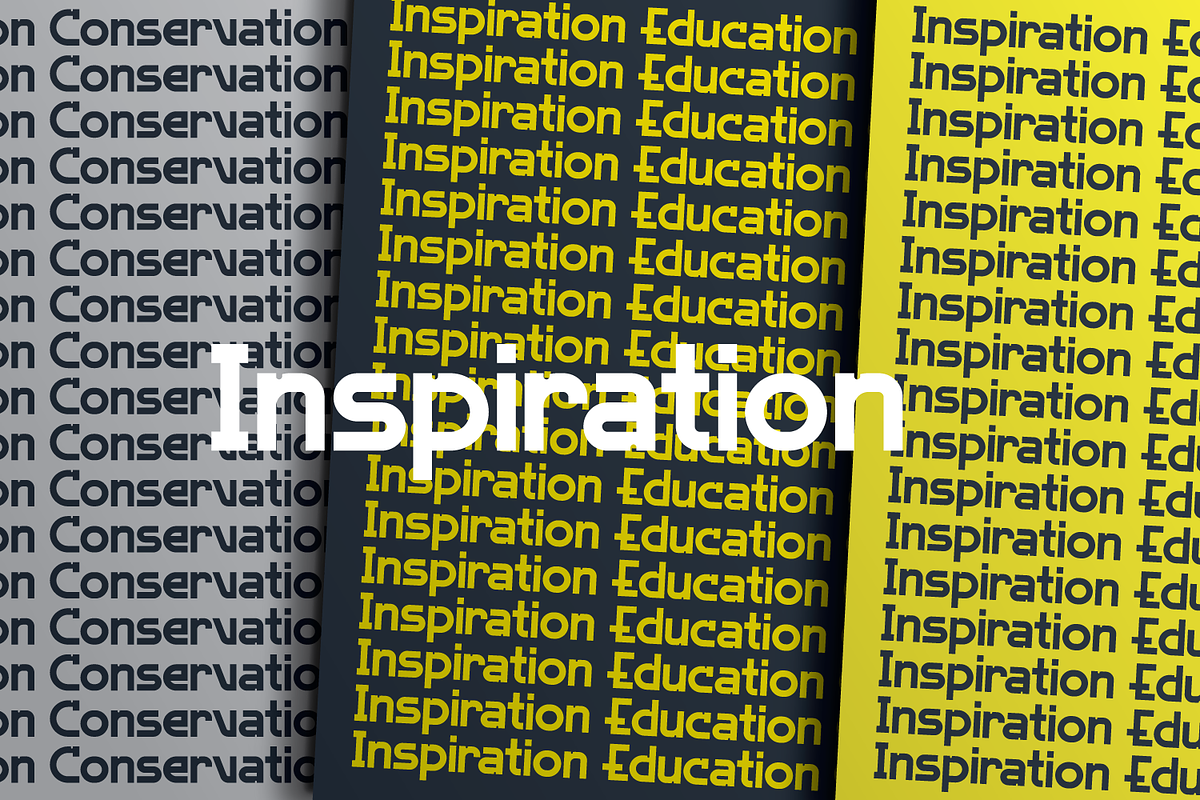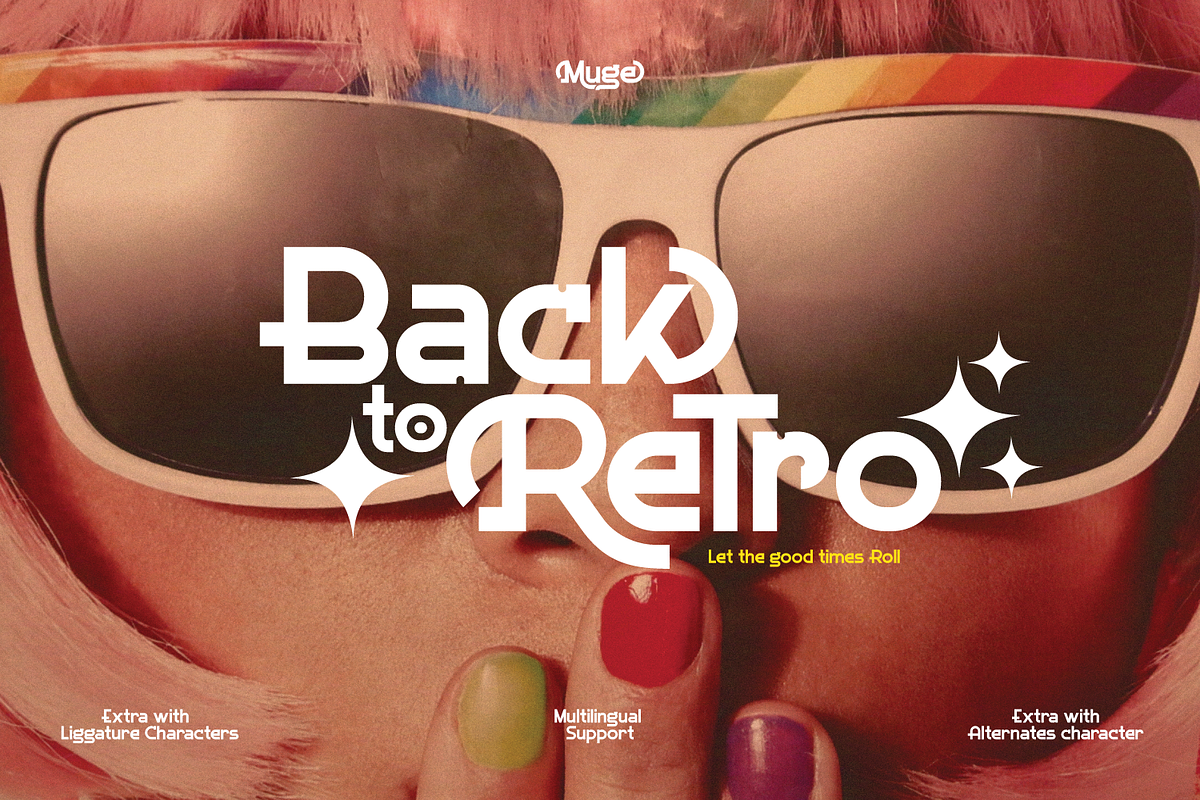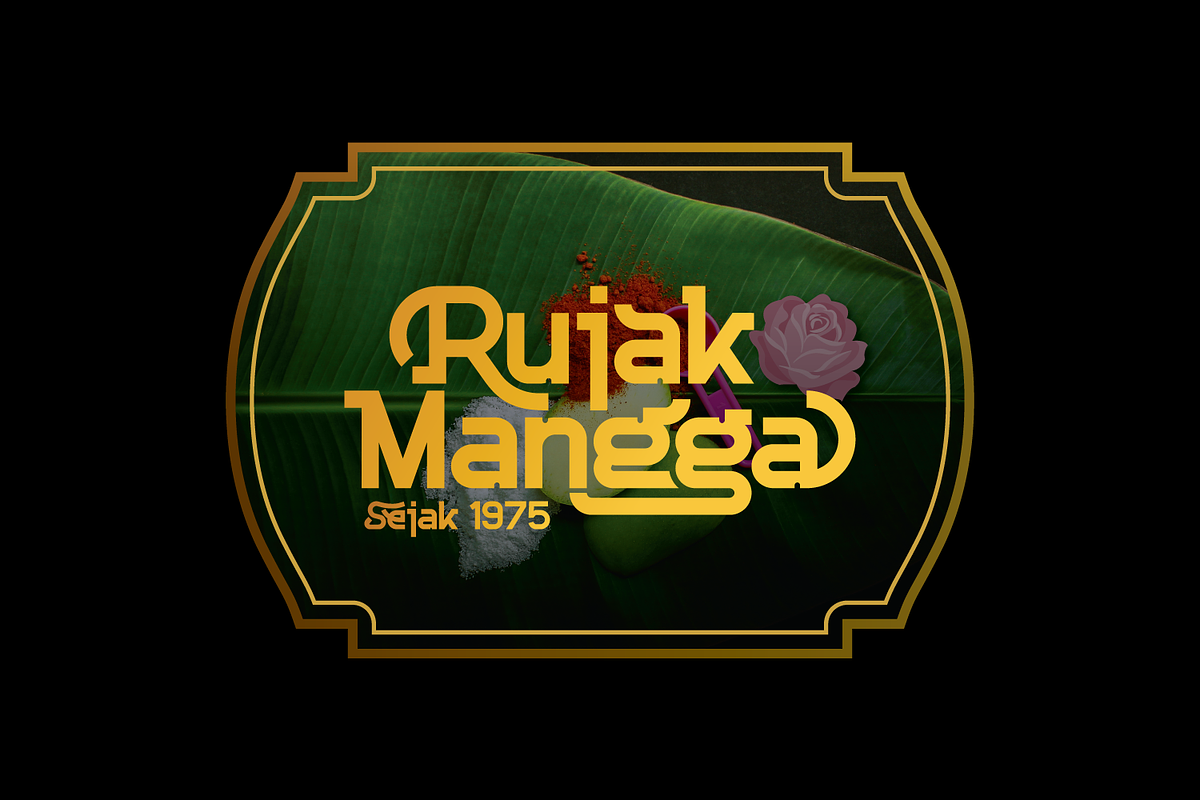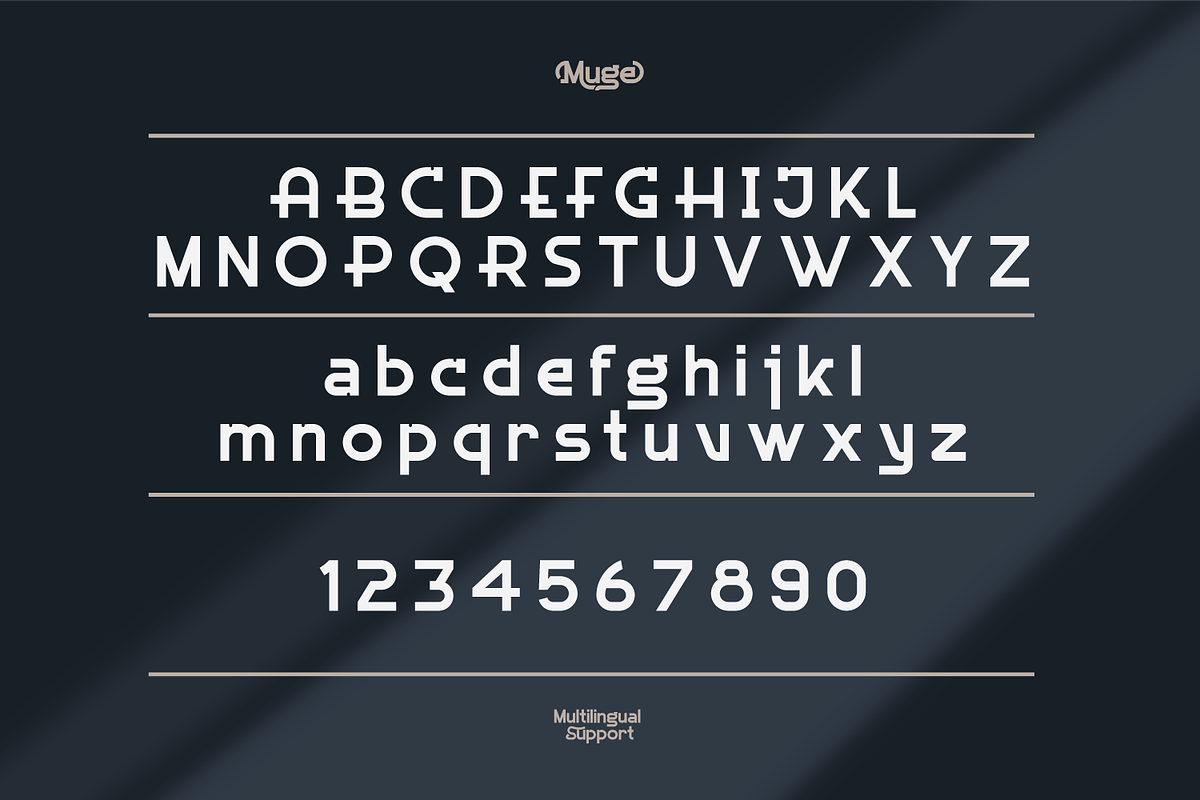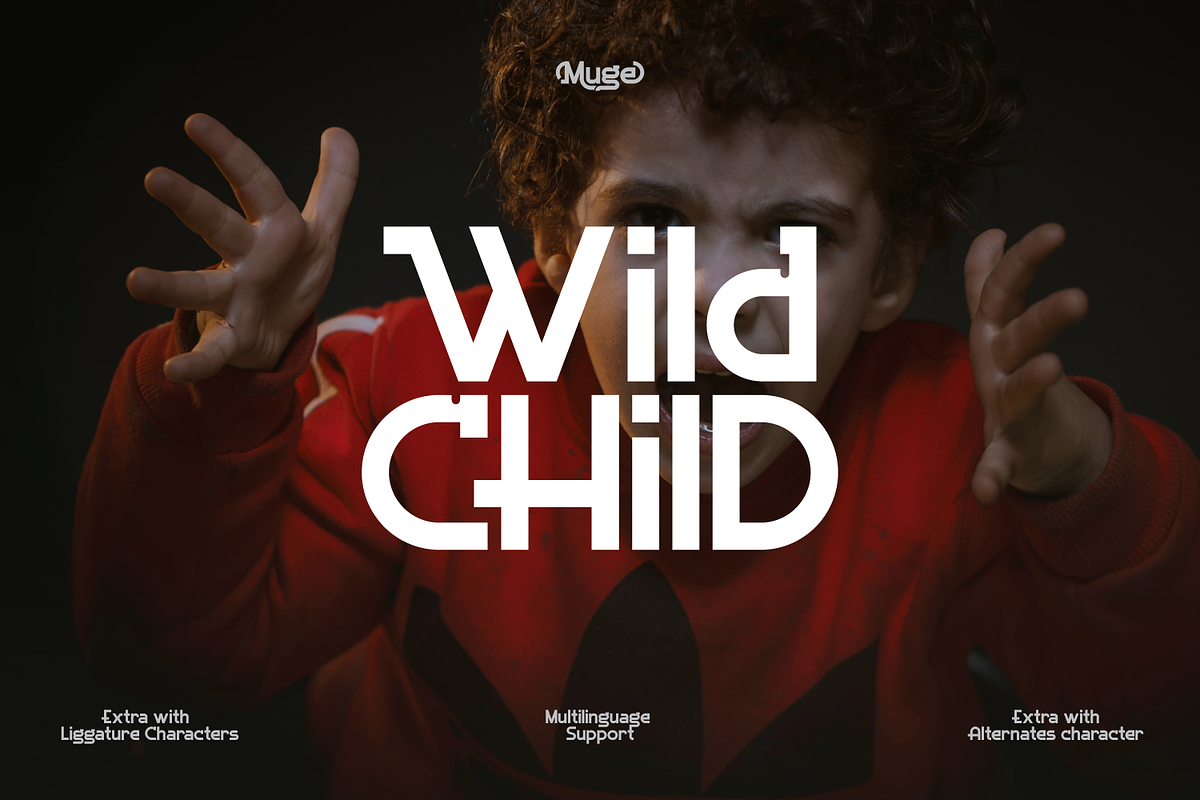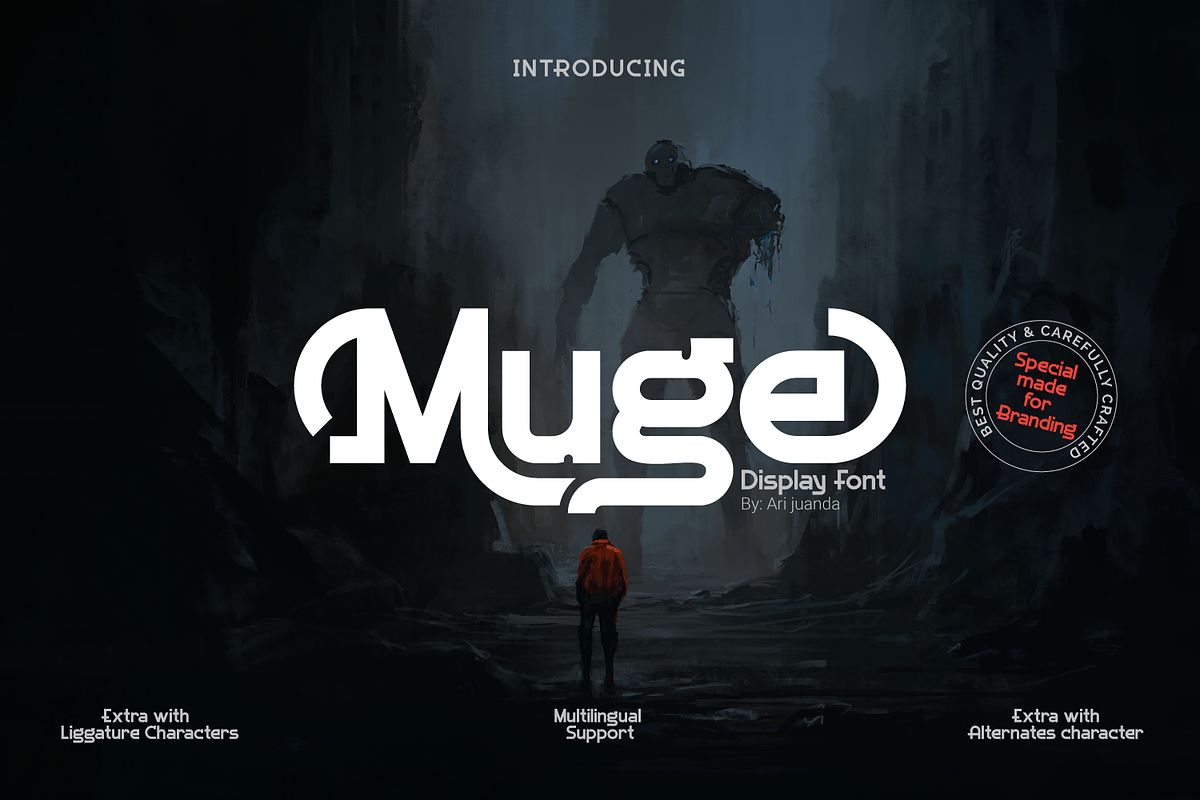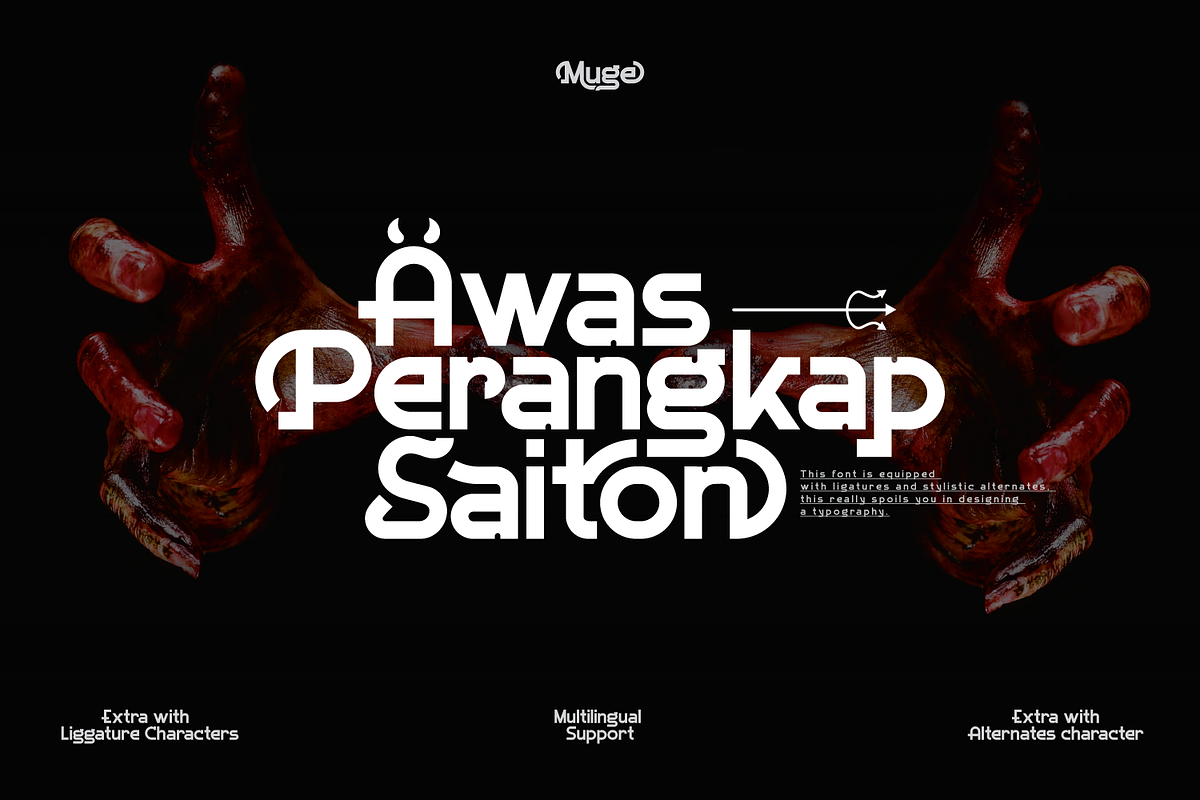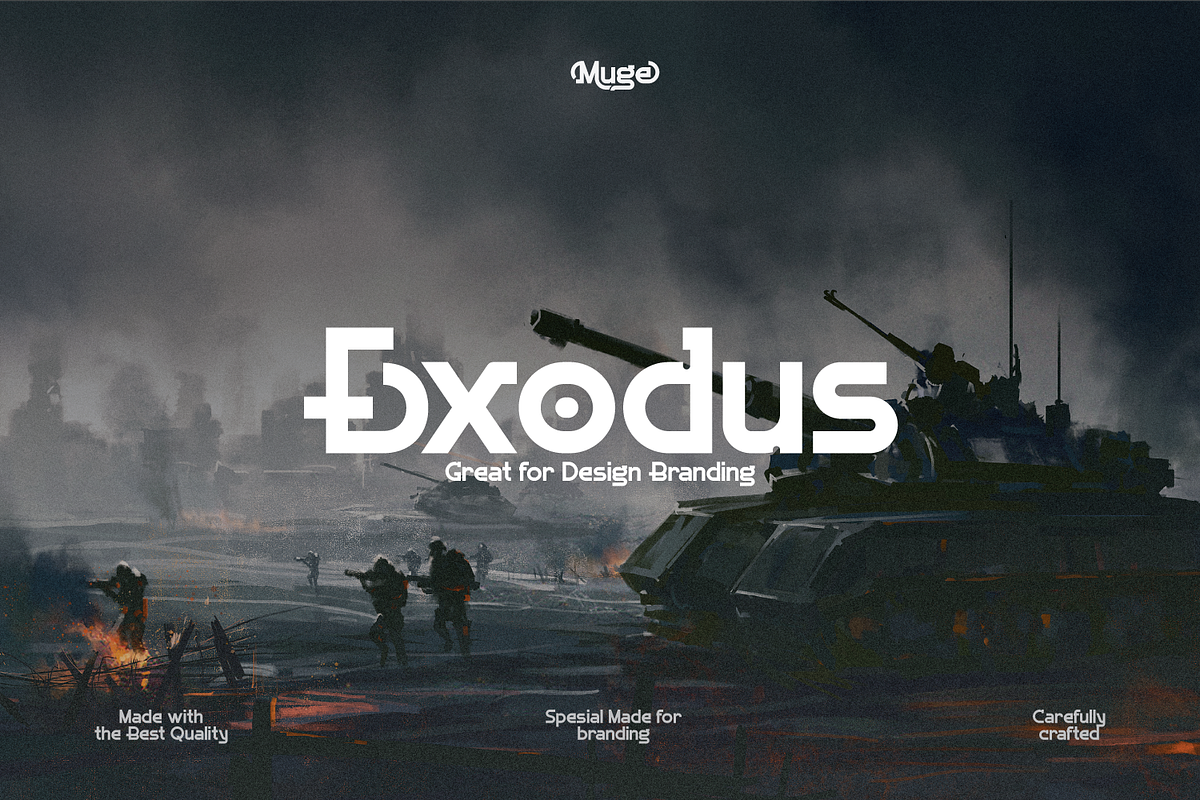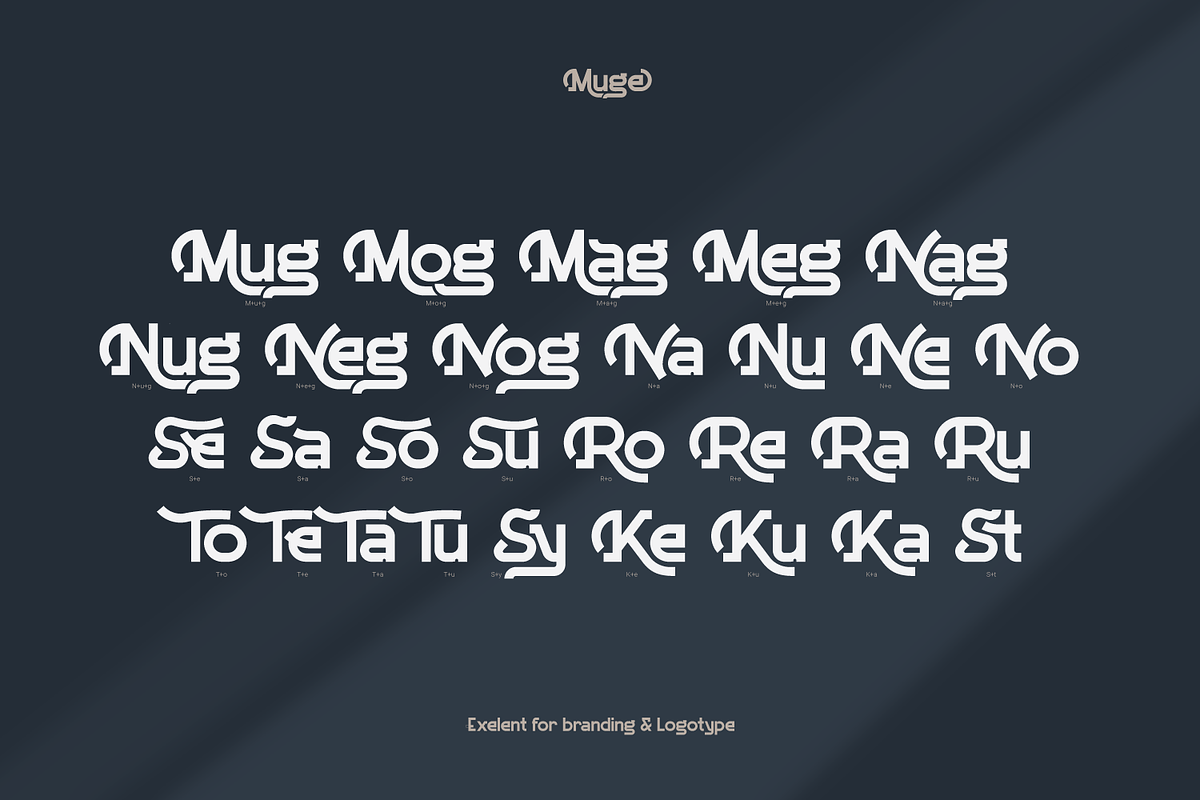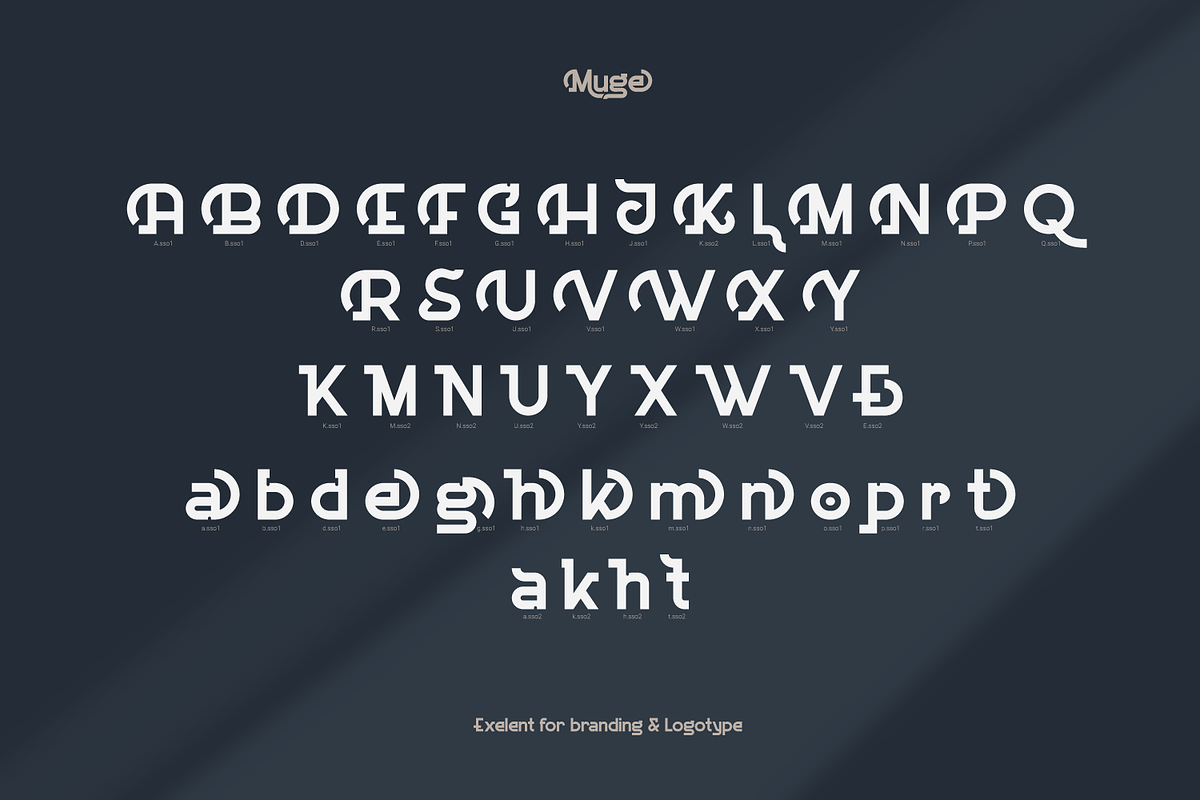
Muge
Muge is awesome for branding and logotype, Muge has a modern, trendy and elegant impression. Muge Comes with Ligatures and lots of alternate characters & unlock types featured so you can mix and match like a you want. Muge also supports multi-language (Western Europe Latin)